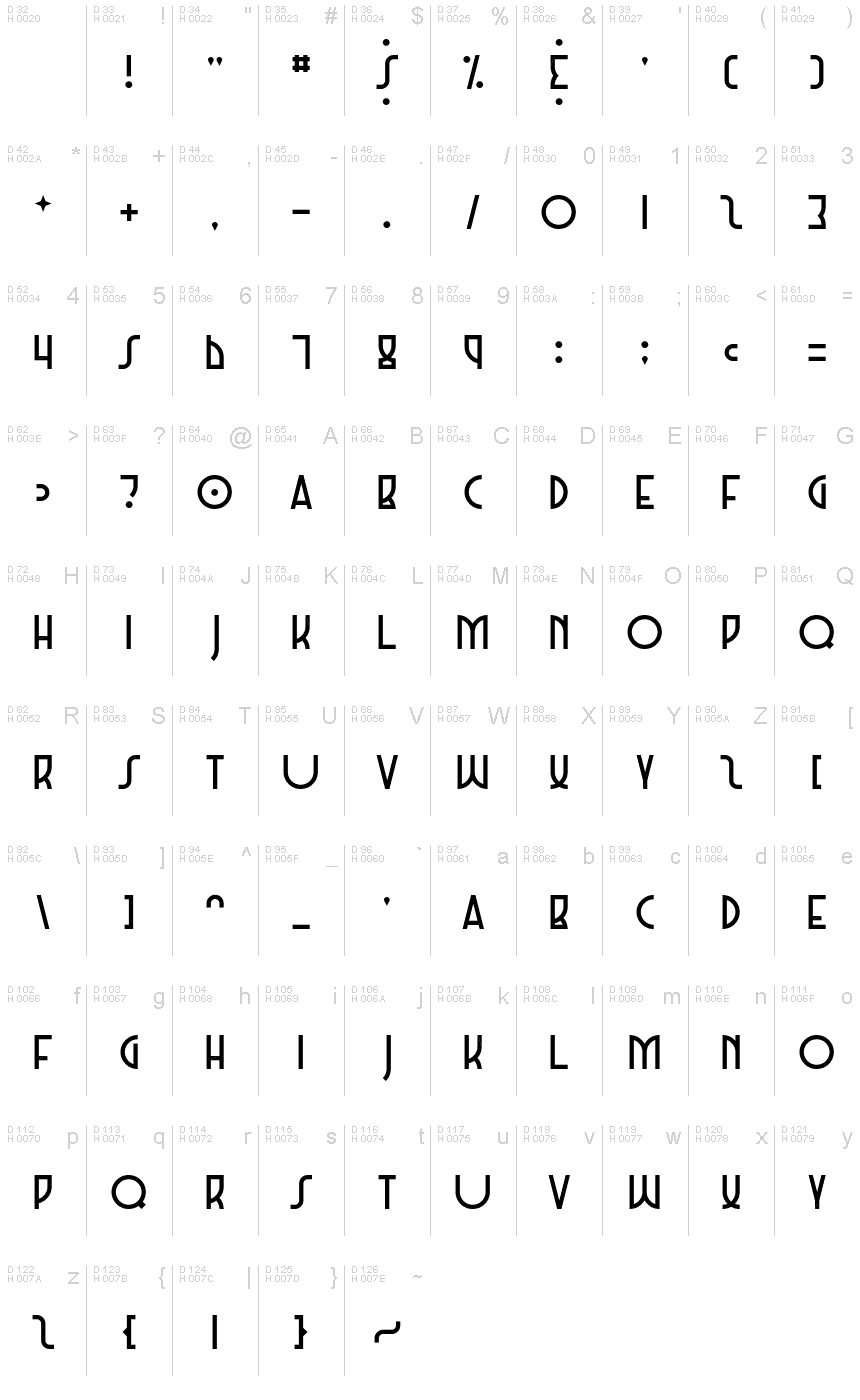
strawberry apocalypse
strawberry apocalypse was built with FontStruct
Designer description: <p>a more standard art deco font inspired by the atomic age</p>